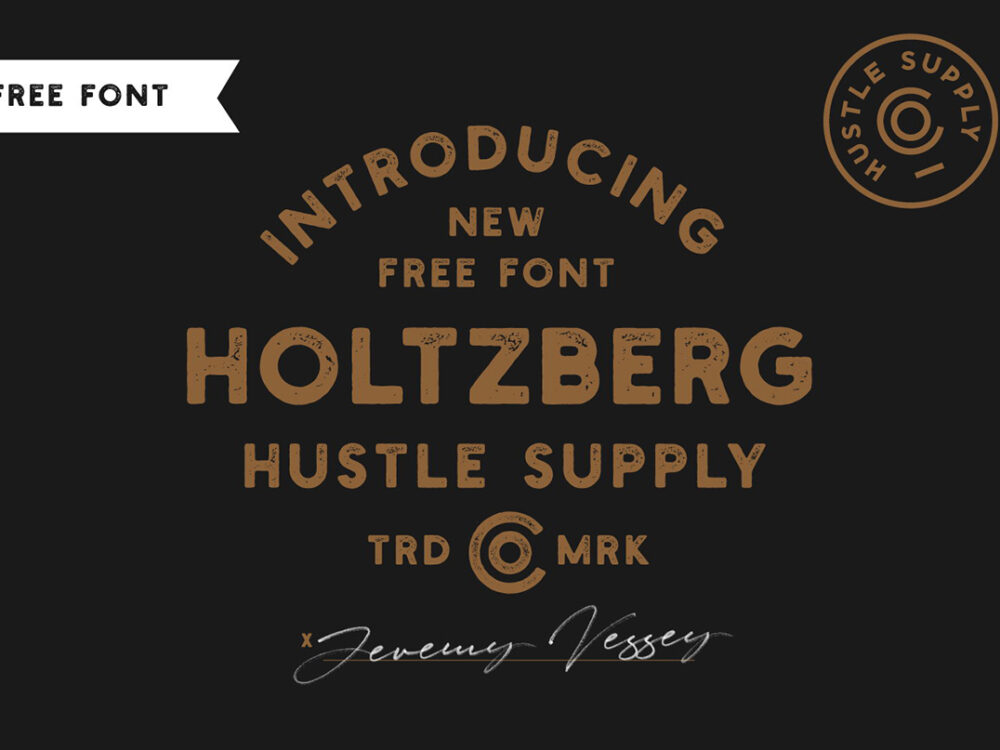
Free Holtzberg Font
Free Retro Font
Free Holtzberg Font is a free vintage print/print effect typeface to help you get a bold aesthetic. This font is perfect for vintage logos, restaurants, hairdressers, bars, cafes, and more. Enjoy!